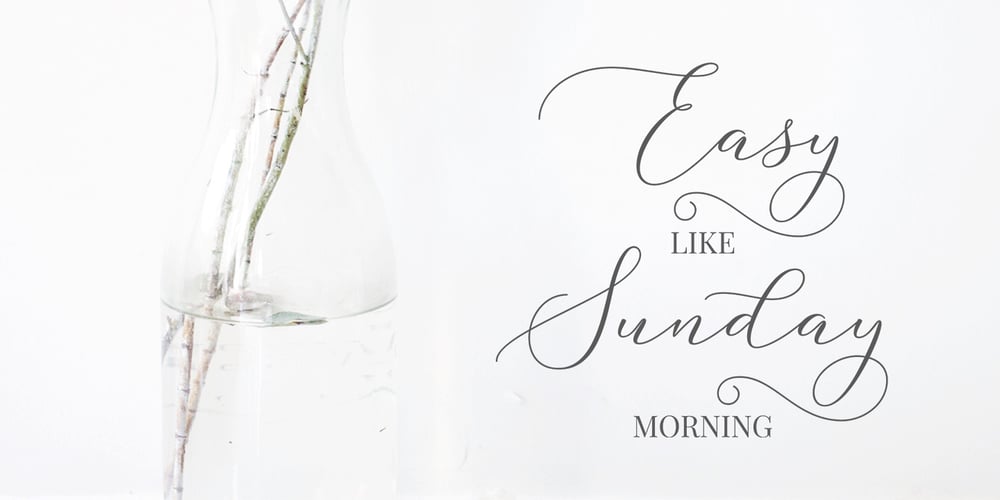
Yasmine Gardner Font Family was designed by M Akmal and published by Mega Type. Yasmine Gardner contains 1 styles and family package options. Yasmine Gardner Script is elegant calligraphy font, including Regular. This font is casual and pretty with swashes. Can used for various purposes. such as logo, product packaging, wedding invitations, branding, headlines, signage, labels, signature, book covers, posters, quotes and more. Yasmine Gardner Script features OpenType stylistic alternates, ligatures and International support for most Western Languages is included. To enable the OpenType Stylistic alternates, you need a program that supports OpenType features such as Adobe Illustrator CS, Adobe Indesign & CorelDraw X6-X7, Microsoft Word 2010 or later versions.How to access all alternative characters using Adobe Illustrator: https://www.youtube.com/watch?v=XzwjMkbB-wQ Yasmine Gardner Script is coded with PUA Unicode, which allows full access to all the extra characters without having special designing software. Mac users can use Font Book , and Windows users can use Character Map to view and copy any of the extra characters to paste into your favourite text editor/app.How to access all alternative characters, using Windows Character Map with Photoshop: https://www.youtube.com/watch?v=Go9vacoYmBw If you need help or have any questions, please let me know. I’m happy to help ๐ Thanks & Happy Designing!